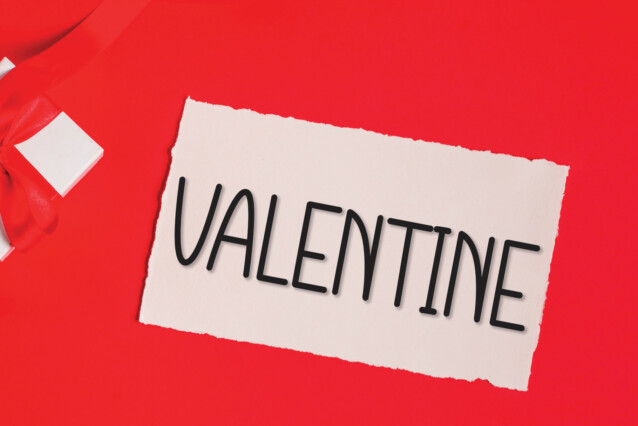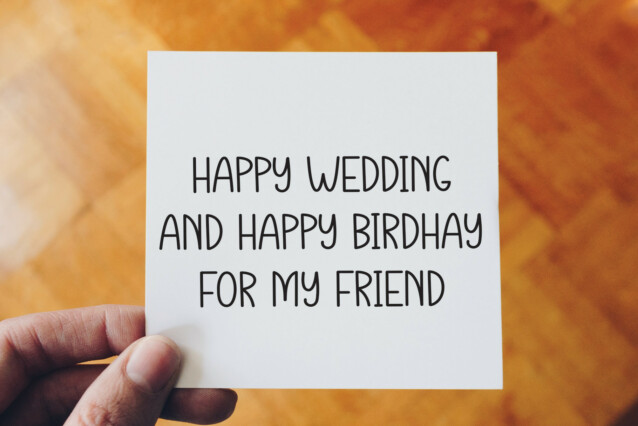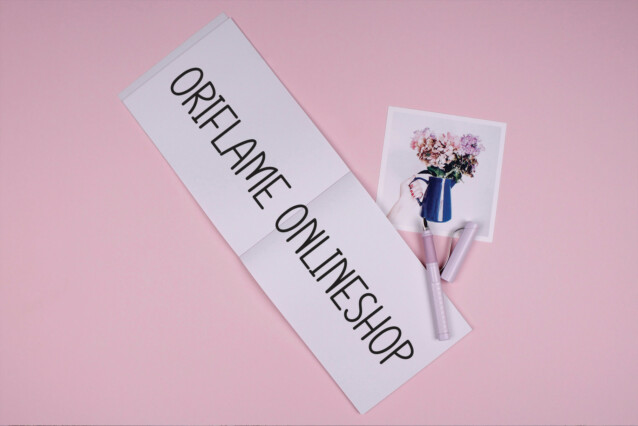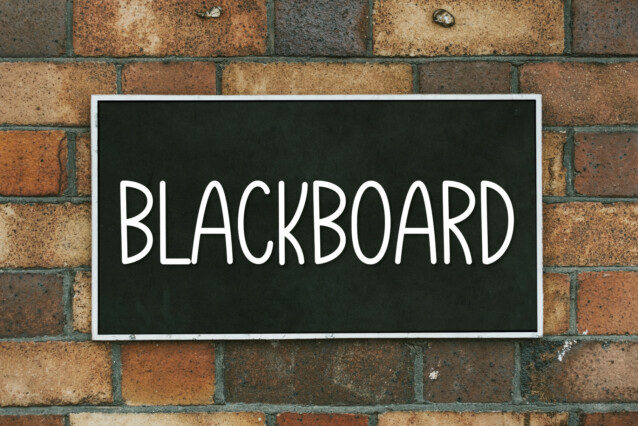
Eat And Drink Display Font
Eat And Drink Display Font is a friendly and casual handwritten font. Its natural charm makes it suitable for a wide spectrum of applications.